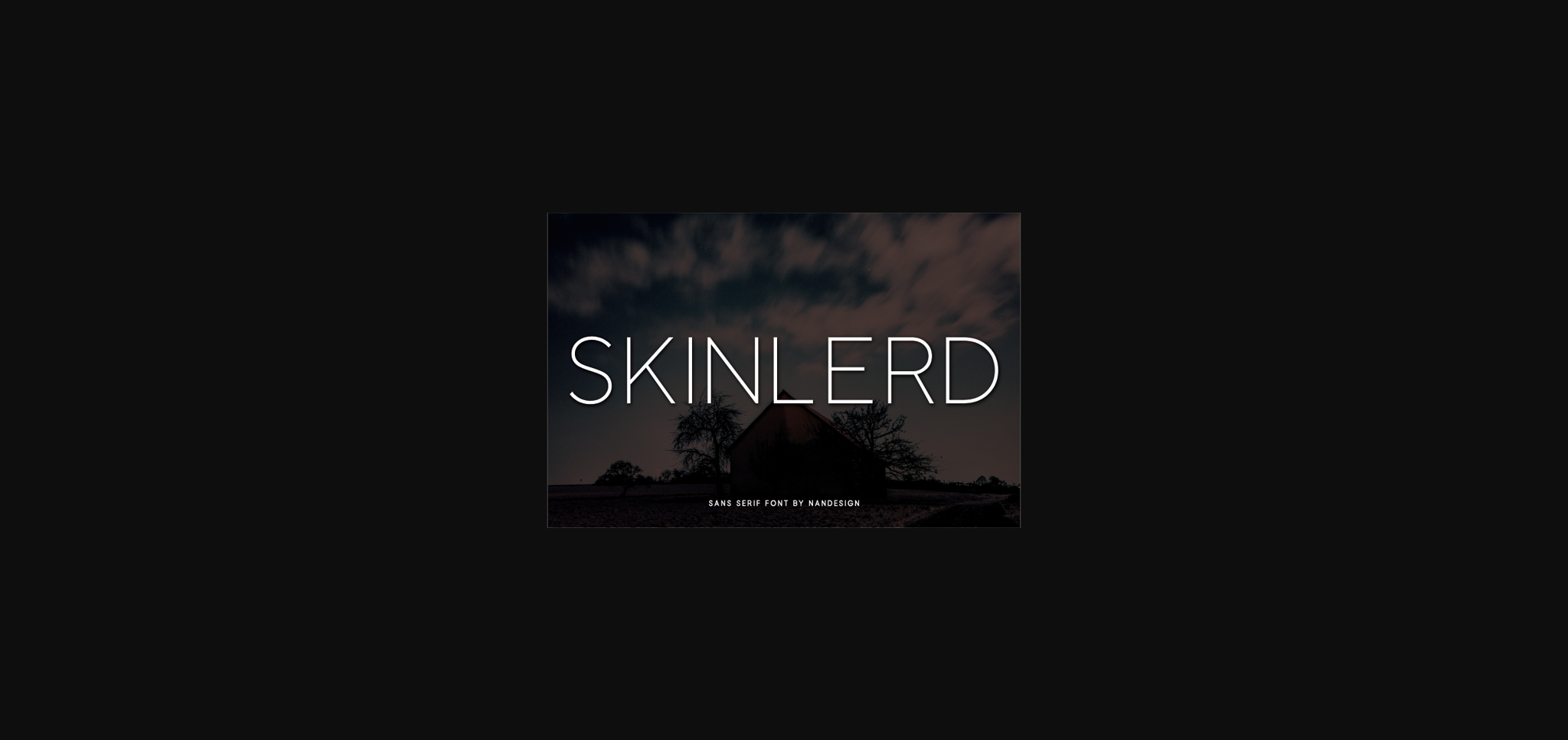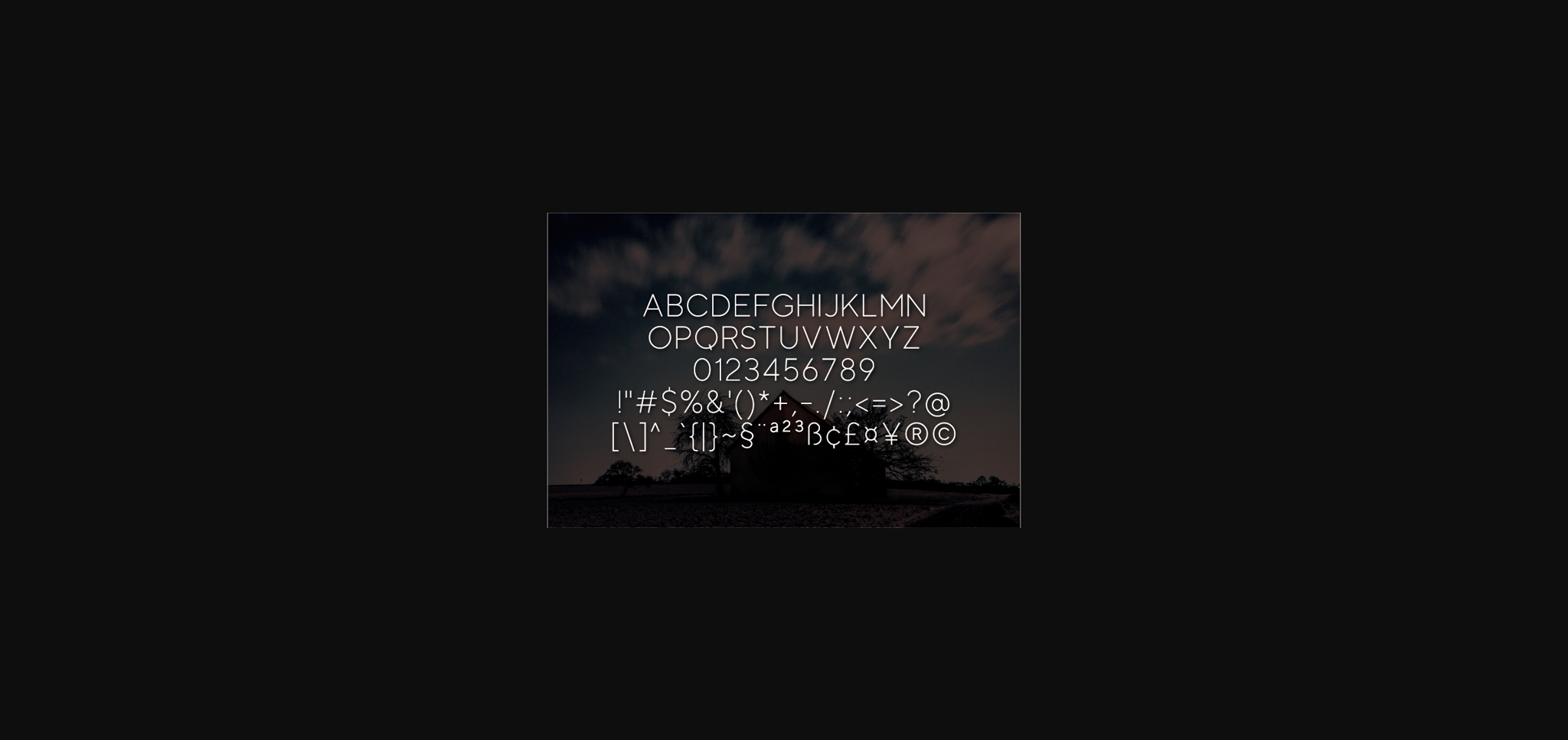
Skinlerd Font
About Skinlerd Font
Skinlerd is a simple and thin lettered sans serif font. It can be matched to an incredibly wide range of projects, such as displays, headers, invitations, save the dates, weddings, and so much more!